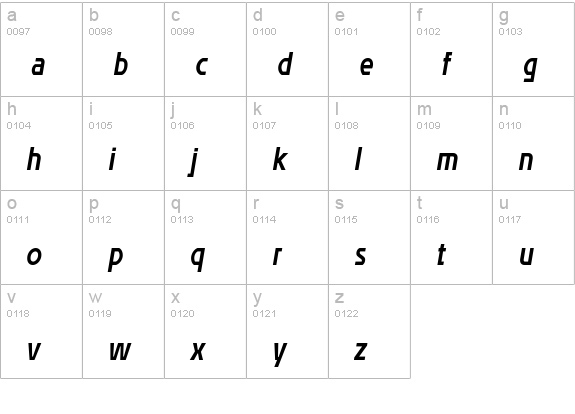
Affluent Bold Italic Font Details
Affluent Bold Italic is a strong, high-contrast, italic variant in the Affluent typeface family \xE2\x80\x94 well suited to headlines, attention-grabbing titles, and strong calls-to-action.